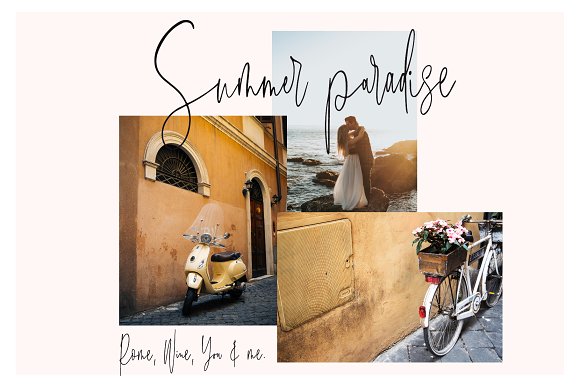
Valerie Signature Typeface
Valerie Signature Font is perfect for personal branding consultants, sophisticated boutique logos, elegant wedding stationery, authentic autograph reproductions, luxury business cards, romantic greeting cards, upscale personal coaching materials, and intimate social media graphics.
This font is exciting because it captures the intimate elegance of genuine handwritten signatures with flowing letterforms that embody the personal touch and authentic character of individual expression and sophisticated penmanship. Valerie Signature Font brings personal authenticity to designs through its natural curves and signature styling that feels like typography written with favorite fountain pens and blessed with personal charisma. The font's intimate character makes it perfect for personal brands and want to communicate authenticity, sophistication, and the kind of genuine human connection that builds trust and lasting relationships.
The Valerie Signature Font family includes Regular, Bold, Light, Flourished, Personal, and Elegant variants, each designed to capture different aspects of signature elegance while maintaining the font's characteristic authentic appeal and handwritten charm. The character set features natural variations that enhance the font's realistic signature appearance and personal touch.
Whether you're creating personal brand identities, designing materials for intimate occasions, or developing content that needs to project genuine authenticity, Valerie Signature Font Free Download delivers the personal typography that creates immediate emotional connection and builds trust through authentic human expression. This remarkable typeface transforms text into personal signatures that resonate with the same warmth and genuine character found in handwritten letters from cherished friends, ensuring your message communicates the profound sincerity and personal authenticity that makes every communication feel like a personal gift crafted with care and signed with love.